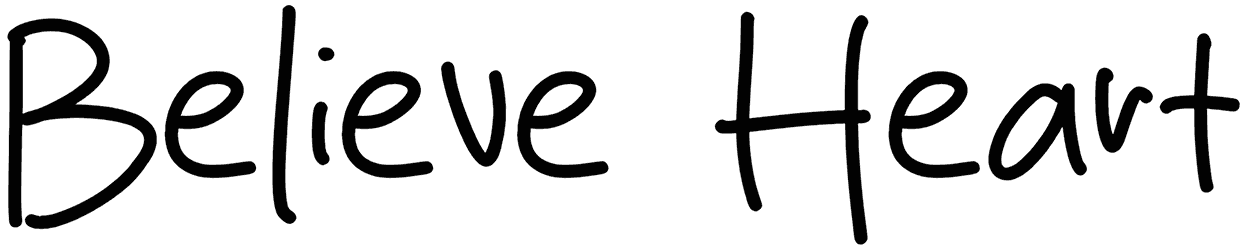
Hashed Browns Font
The Hashed Browns may satisfy your need if you are looking for an adorable font. This handwritten font has a friendly vibe and can be practical for various cases, such as posters, social media posts, and advertisements.
The Hashed Browns font is offered in two versions, simple and outline, which helps you expand your selection range. This font‘s letters have soft, rounded edges that create a friendly feeling and make it memorable for the viewers.